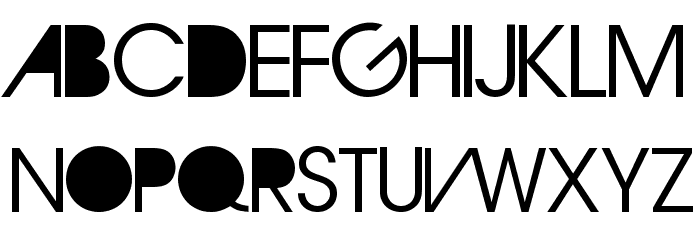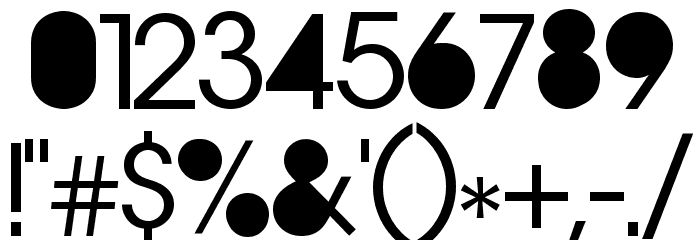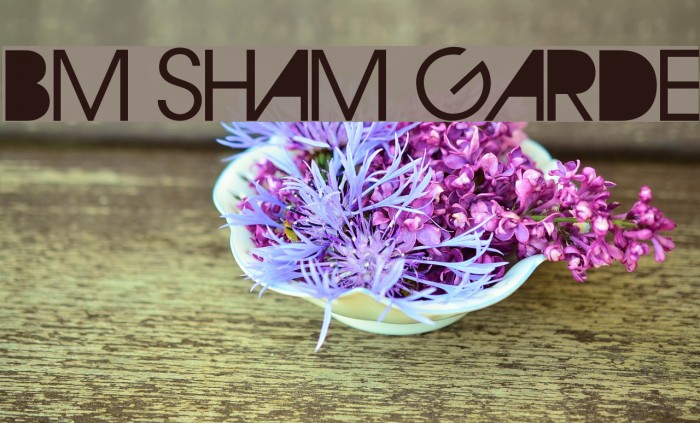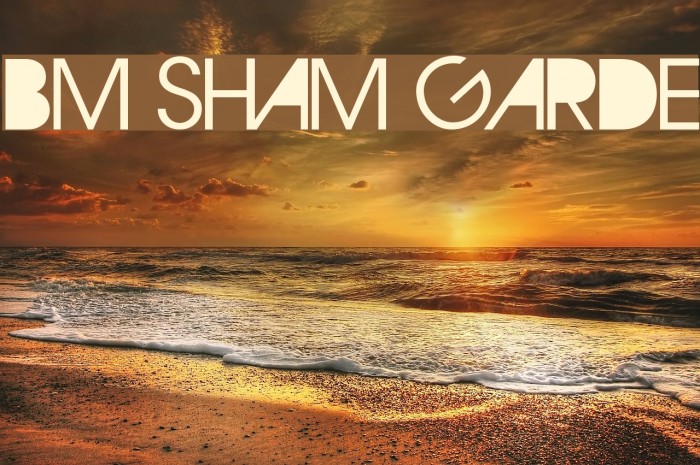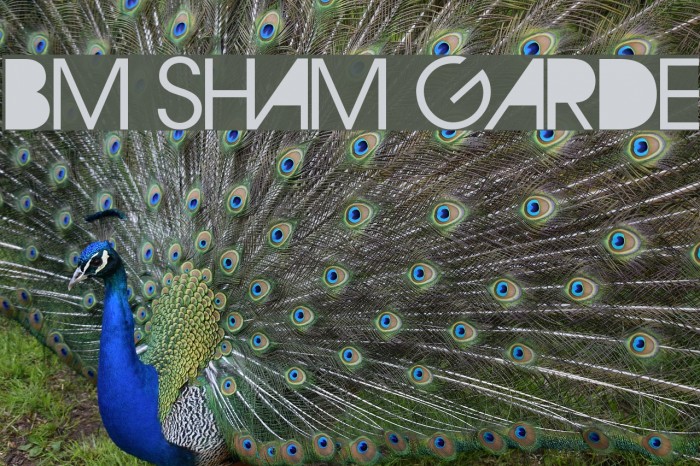
BM Sham Garde Font
This font features a bold and geometric design, characterized by its clean lines and modern aesthetic. The uppercase letters are distinct with sharp angles and a uniform stroke width, creating a sense of balance and symmetry. The numerals and special characters maintain this geometric style, ensuring consistency across all glyphs. The font's design is both striking and versatile, making it suitable for a variety of applications. Its boldness and clarity make it ideal for headlines and display purposes, where impact and readability are essential.
A bold, geometric font with clean lines and a modern aesthetic.
- Proposed Projects: Ideal for branding, advertising, posters, and any project requiring a strong visual impact.